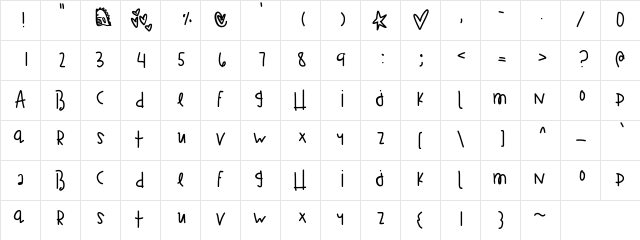
Complete TragicKingdom Medium glyph index. Displaying only characters natively supported by TragicKingdom Medium font.
TragicKingdom is a composed and adaptable typeface that performs quietly and consistently across a wide range of design contexts.